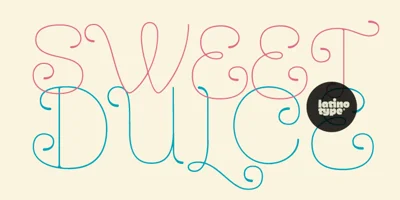
Dulce Font
Dulce Font is perfect for bakery branding, candy packaging, dessert menus, sweet shop signage, confectionery logos, pastry advertising, children's party invitations, ice cream parlors, and delightful food communications. This charming typeface brings sugary sweetness and confectionery delight to projects requiring appetizing typography with irresistible charm and delicious visual appeal.
What makes Dulce Font exciting is its confectionery sweetness that captures the irresistible allure of handcrafted desserts and artisanal sweets with remarkable charm and mouth-watering appeal that evokes childhood memories of candy stores. The font features soft, rounded letterforms with gentle curves and sweet proportions that reflect the tender care of pastry craftsmanship and confectionery artistry. Its delightful personality and sugary character make it irresistible for dessert brands seeking typography that stimulates sweet cravings while creating emotional connections through nostalgic confectionery storytelling and delicious visual experiences.
The Dulce Font family includes sweet weights and confectionery styles: Light, Regular, Medium, Bold, and decorative variations with candy alternates and sweet symbols. Each weight maintains the font's delicious character while offering designers creative flexibility for dessert branding and confectionery design applications requiring authentic sweetness and appetizing visual presentation.
Whether you're designing for bakeries or candy companies, Dulce Font offers designers a sweet, dessert-focused typeface solution. The font's confectionery aesthetics and delightful styling make it ideal for patisseries, candy manufacturers, ice cream shops, and dessert restaurants. Its charming presence ensures your message communicates sweetness and quality while maintaining excellent confectionery readability. The comprehensive character set includes sweet symbols and dessert decorations, making it perfect for creating tempting headlines and brand identities that celebrate confectionery traditions and establish memorable connections with sweet lovers seeking authentic dessert experiences and artisanal confectionery delights.